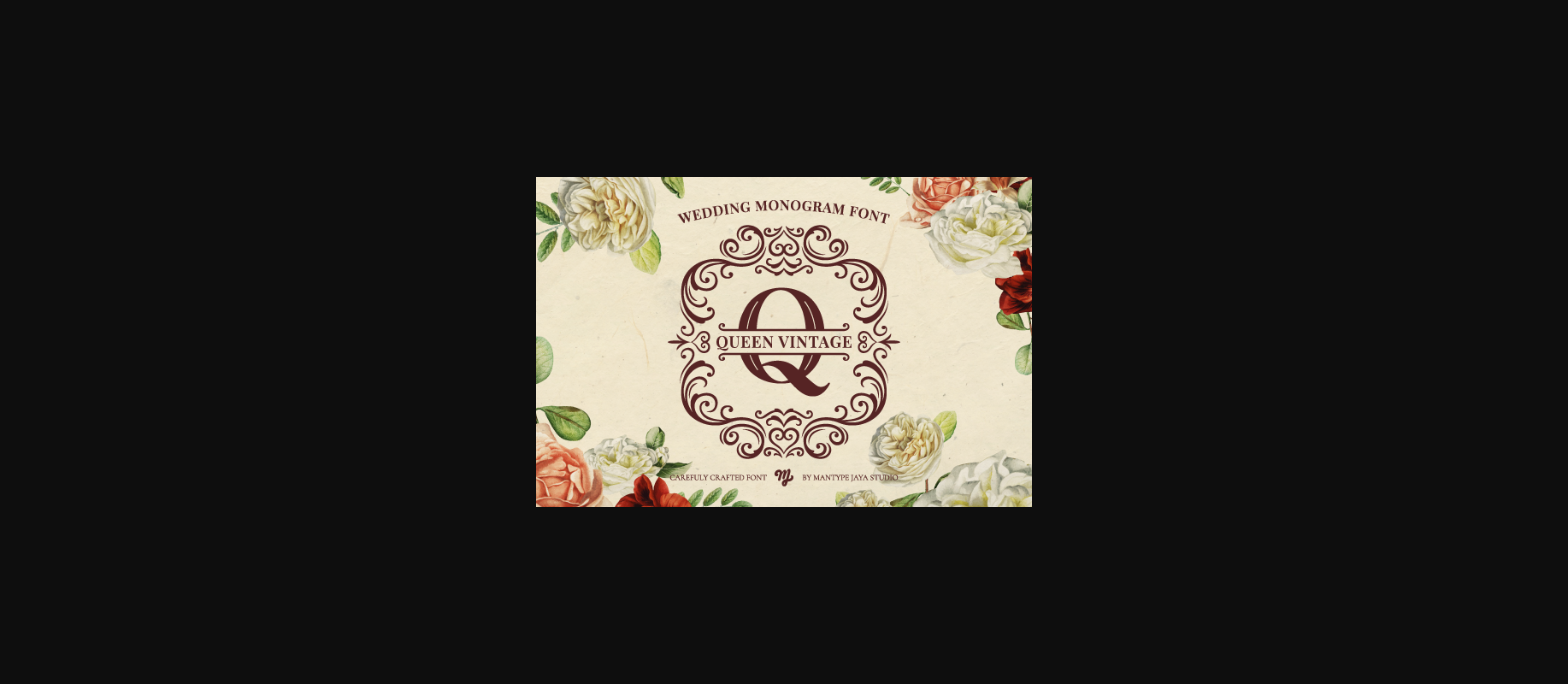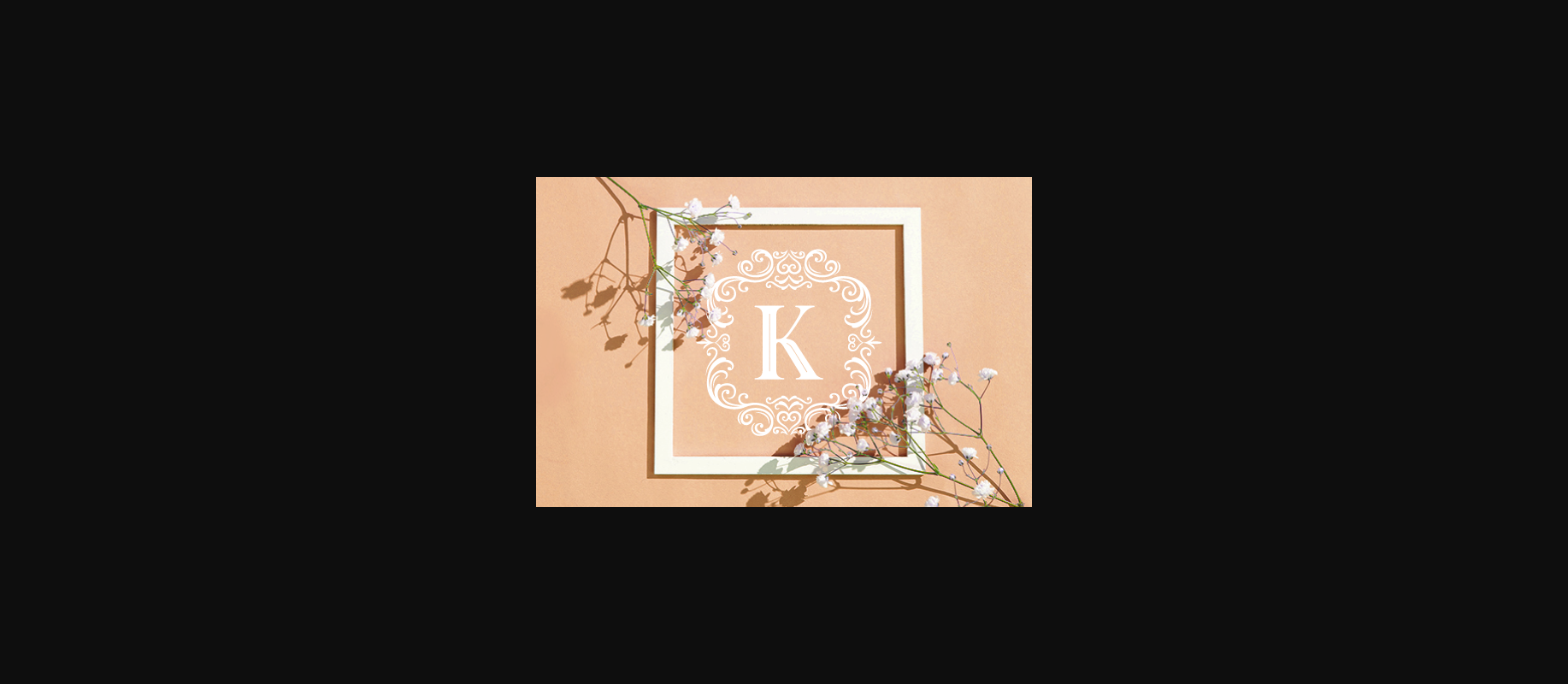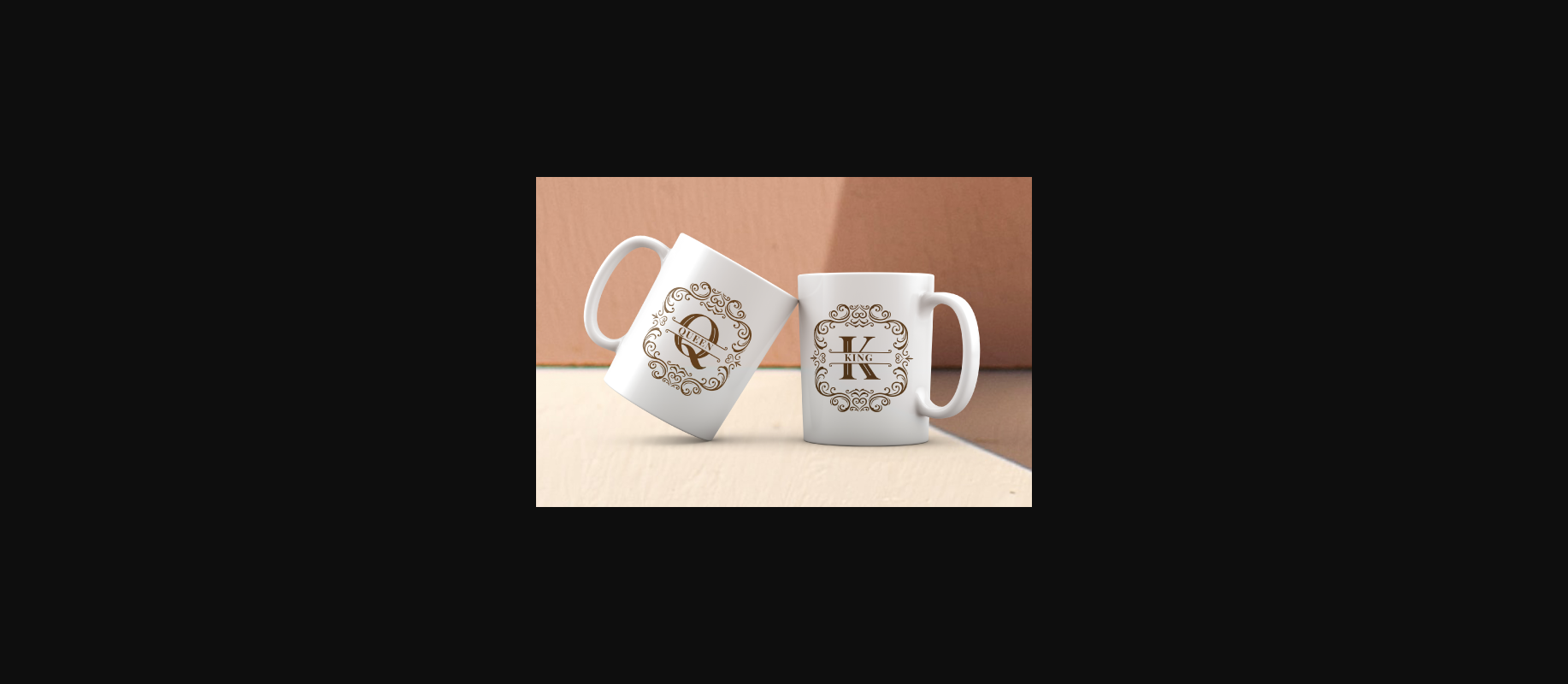
About Queen Vintage Monogram Font
Queen Vintage Monogram is a classic styled and elegant decorative font. It has a charming ornamental design, use this font to create beautiful and luxurious wedding designs, gorgeous wedding invitations, eye-catching elegant logos, or to make unique gifts and souvenirs.